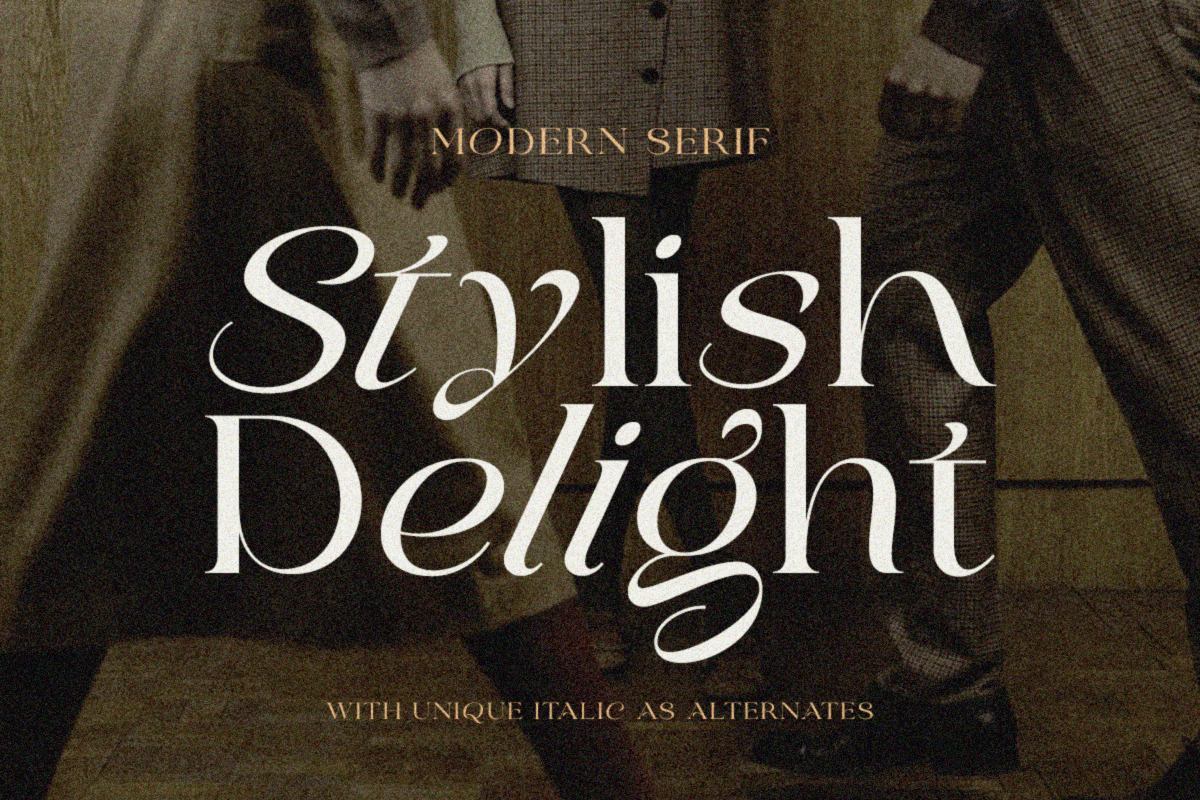
Stylish Delight - Modern Serif Font Free Download is a contemporary and elegant serif typeface designed to bring sophistication and clarity to your designs. With its sleek lines, refined letterforms, and balanced proportions, Stylish Delight is perfect for branding, editorial design, packaging, and any project that requires a stylish, professional appearance.
This modern serif font combines timeless beauty with a fresh, clean aesthetic, making it ideal for luxury brands, high-end fashion, corporate identity, and upscale marketing materials. Whether you're working on a logo, a magazine layout, or digital designs, Stylish Delight offers both readability and elegance.